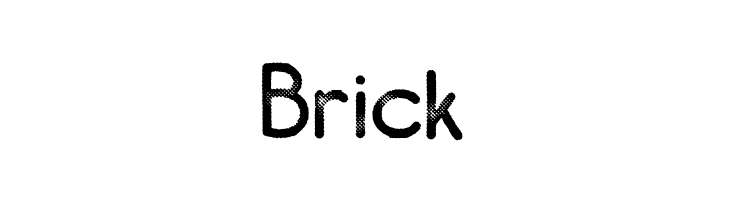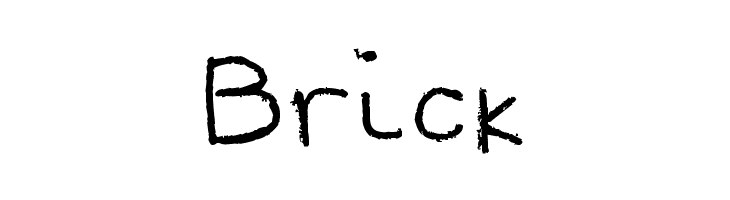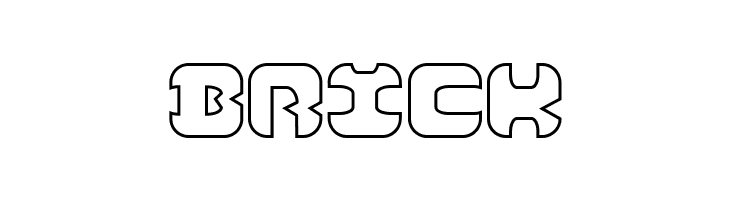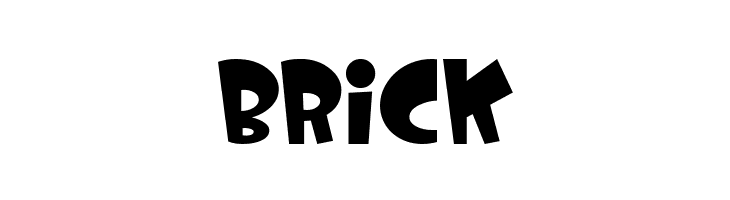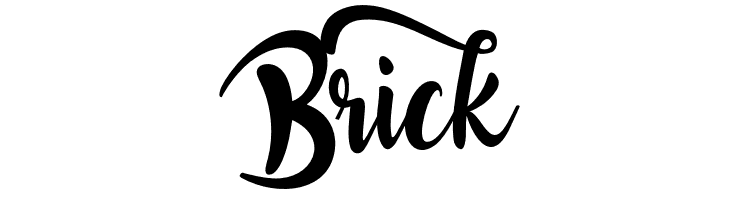
A bold, playful font with exaggerated curves and a cartoonish style.
A bold, textured font with a retro, playful style.
A playful, textured handwritten font with a casual, informal style.
A bold, geometric, and futuristic outlined font with a playful aesthetic.
A bold, geometric outline font with a modern and playful style.
A bold, rugged, hand-drawn font with a distressed texture.
A playful, hand-drawn font with an organic and casual style.
A bold, expressive script font with flowing, interconnected letters and dramatic flourishes.
A bold, expressive script font with dynamic strokes and artistic flair.